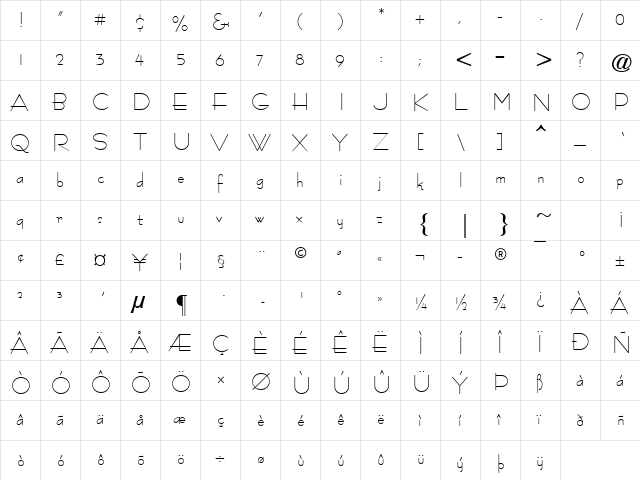
Bernhard Fashion ATT Regular
Design Context for Bernhard Fashion ATT Typeface
Bernhard Fashion ATT is a composed and adaptable typeface that performs quietly and consistently across a wide range of design contexts.